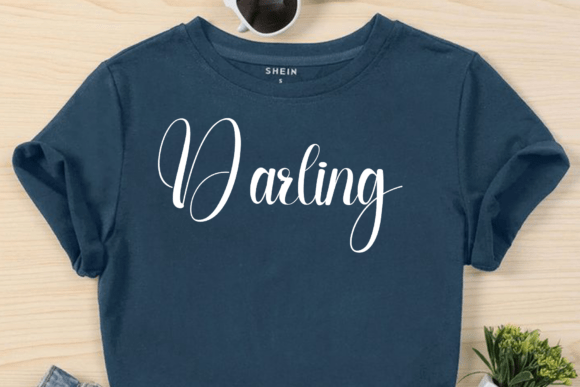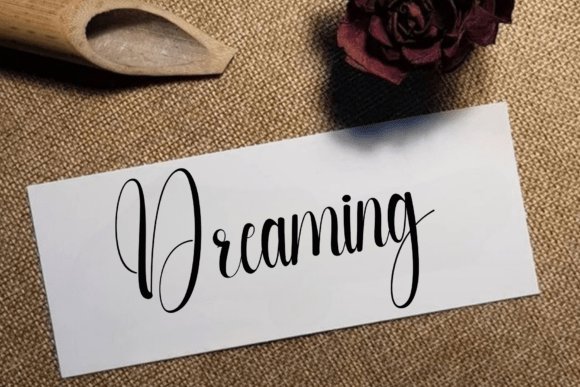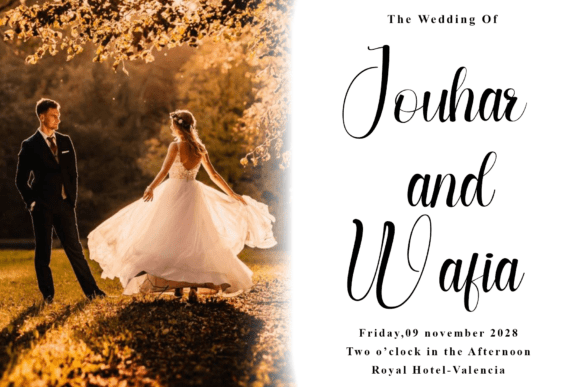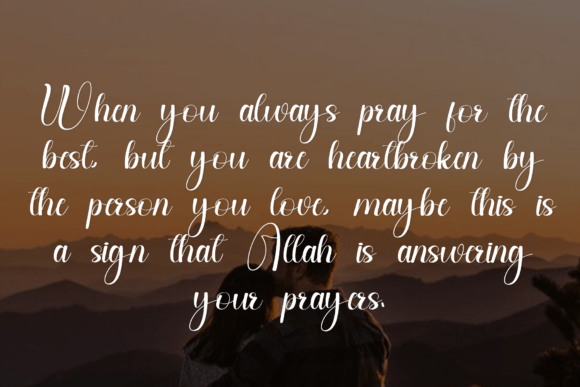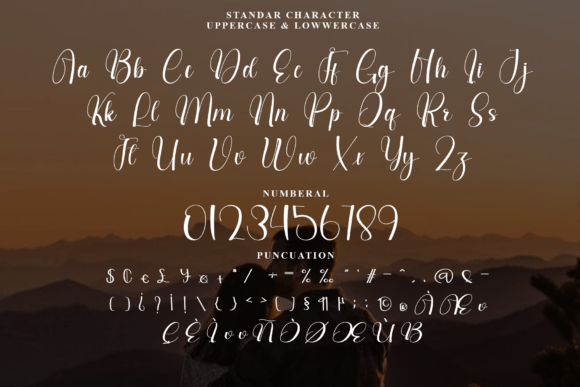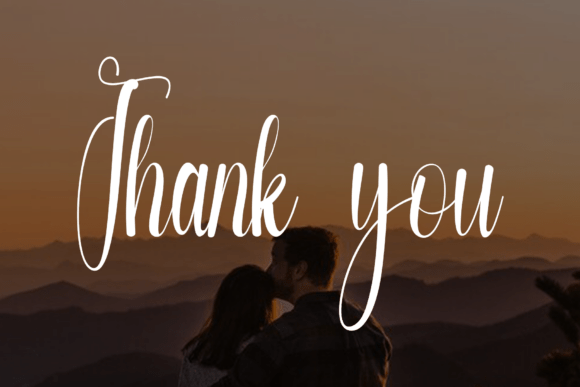
Introduction to Holiday Christian Font
Have you ever stared at a blank canvas, trying to decide on the perfect font to bring your creative project to life? For many designers, the search for the ideal font can be a daunting task, but what if I told you there’s a game-changing solution waiting for you? Enter the Holiday Christian Font, a stunning addition to any design arsenal.
This beautiful handwritten font is more than just a pretty face – it’s a valuable resource for designers looking to elevate their work with a touch of elegance and sophistication. With its clean and approachable style, it’s perfect for travel photography, branding for outdoor gear, and sophisticated web design. And the best part? It’s available for free download, making it an accessible design resource for creatives of all levels.
Key Features of Holiday Christian Font
- High-quality, professional design for various creative projects, including Christmas and holiday-themed materials.
- Transparent background, allowing for easy customization and integration with various backgrounds and images.
- Includes a range of characters, including uppercase and lowercase letters, numbers, and punctuation marks, to support various languages and design needs.
- Unique, festive design elements and ornaments that can be used to add a touch of holiday cheer to any project, making it an ideal choice for designers looking to create special and memorable designs.
Honest Review: Holiday Christian Font
- High-quality font with a transparent background, making it easy to layer with other design elements
- Works well in a variety of contexts, from modern and minimalist to traditional and elegant
Getting the Most Out of the Holiday Christian Font
To get the most out of the Holiday Christian Font, use it in conjunction with other high-quality design resources, such as graphics and images. Experiment with different font sizes, colors, and combinations to create unique and eye-catching designs.
The Holiday Christian Font is ideal for various use cases, including:
– Church bulletins and newsletters
– Christian event promotions
– Inspirational quotes and graphics
– Bible study materials